What is the Wedding Script Font Bundle?
The Wedding Script Font Bundle is a beautiful collection of romantic script fonts made for elegant and heartfelt designs. This bundle brings together a range of handwritten and calligraphy-style typefaces that are perfect for wedding invitations, save-the-date cards, greeting cards, logos, branding, and social media posts.
Each font in the Wedding Script Font Bundle features smooth curves, natural strokes, and stylish letter connections that give your text a soft and graceful look. Whether you are designing for a wedding event, a love-themed project, or a luxury brand, these script fonts help you create a warm and personal feeling.
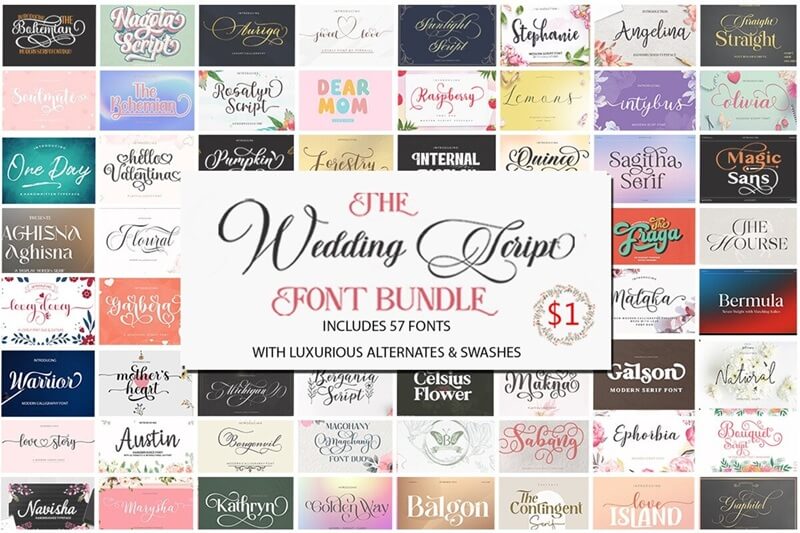
Pumpkin Script